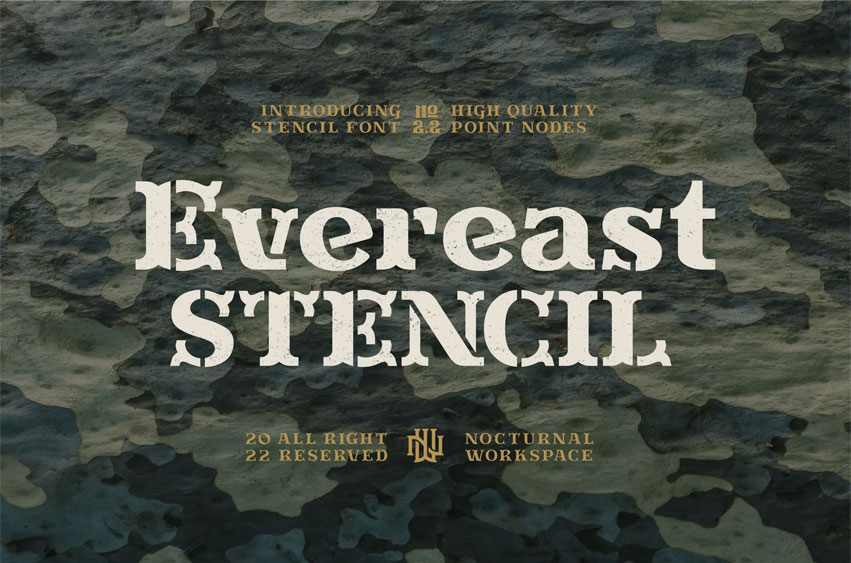
Evereast Stencil Font
Evereast Stencil Font serif is a suitable typeface for various purposes like logotype, signage, label, poster, dropcap, titles, letterhead, book cover, etc.
• Features: Ligatures Contextual, Salt.
• Includes a range of multilingual characters.